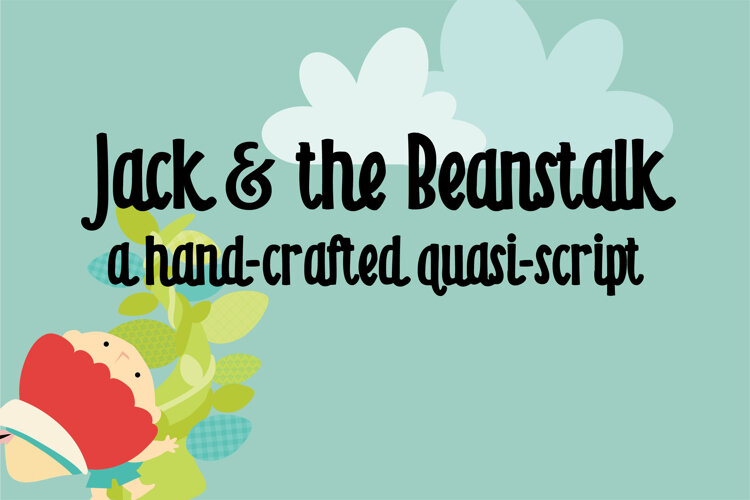
Jack & the Beanstalk Handcrafted Quirky Display Font
Jack & the Beanstalk is a playful handcrafted display font with tall, narrow letters and a quirky storybook personality. Its casual, slightly irregular style is perfect for children’s books, fairy-tale projects, classroom materials, party invitations, greeting cards, crafts, logos, and whimsical designs.